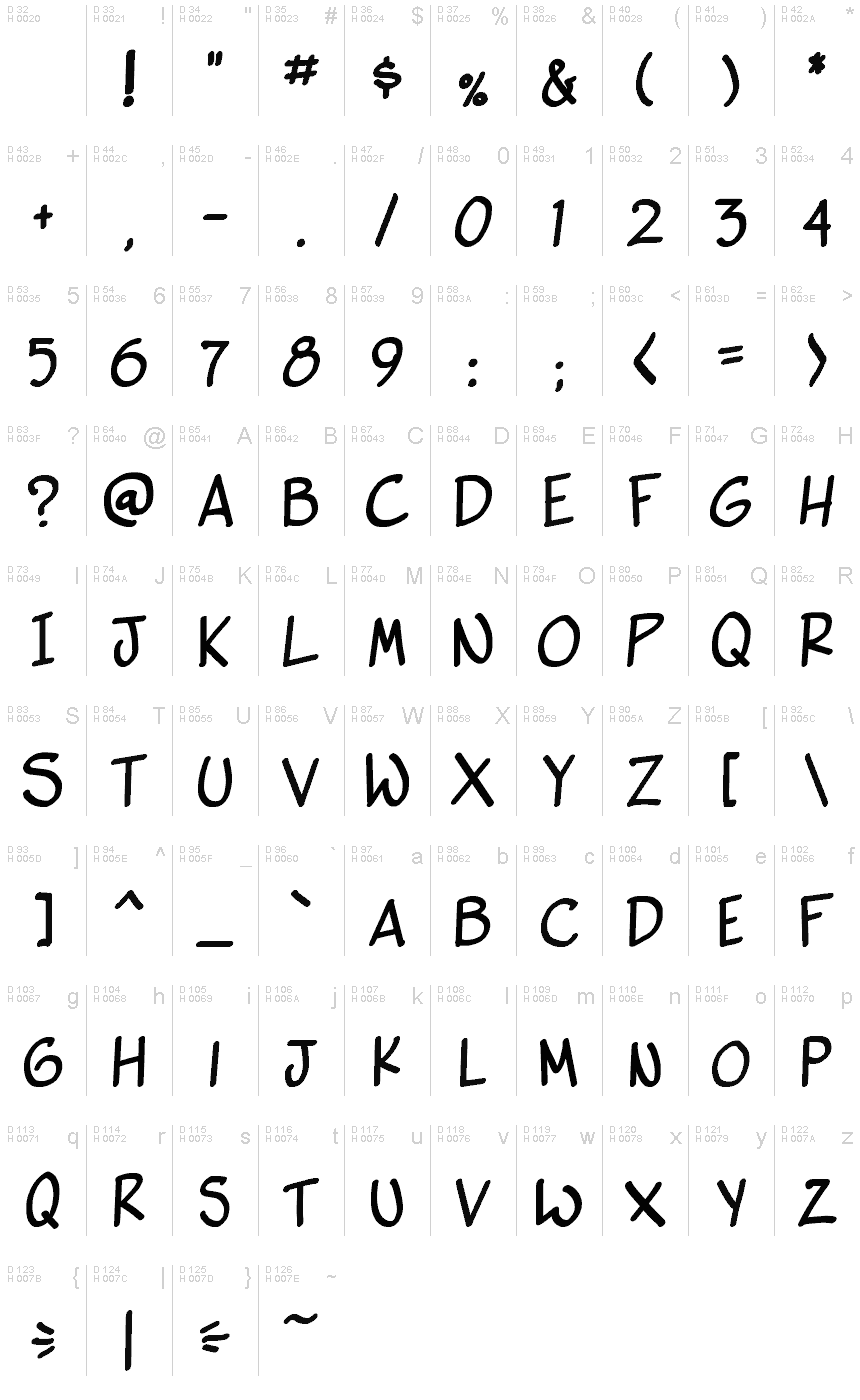
vigilante sidekick Bold
Vigilante Sidekick Bold emerges from the creative minds at Pressgang-studios.com, bringing a dynamic flair to the realm of display fonts. With its roots in the Vigilante Sidekick family, this typeface exudes a comic script style that's both playful and earnest, evoking the charm of classic superhero narratives and graphic novels.
The bold strokes and whimsical contours of Vigilante Sidekick Bold make it an excellent choice for projects that demand attention with a touch of lightheartedness. Its aesthetic appeal lies in the harmonious balance between readability and artistic character, ensuring it stands out while maintaining clarity.
Ideal for eye-catching headlines, vibrant advertising campaigns, or engaging comic book dialogues, Vigilante Sidekick Bold boasts versatility across various creative endeavors. Its unique blend of casual script notes with robust lettering allows designers to craft messages that are as impactful as they are delightful to behold. Embrace the spirit of adventure and storytelling with this standout font that promises to inject personality into every design.
The bold strokes and whimsical contours of Vigilante Sidekick Bold make it an excellent choice for projects that demand attention with a touch of lightheartedness. Its aesthetic appeal lies in the harmonious balance between readability and artistic character, ensuring it stands out while maintaining clarity.
Ideal for eye-catching headlines, vibrant advertising campaigns, or engaging comic book dialogues, Vigilante Sidekick Bold boasts versatility across various creative endeavors. Its unique blend of casual script notes with robust lettering allows designers to craft messages that are as impactful as they are delightful to behold. Embrace the spirit of adventure and storytelling with this standout font that promises to inject personality into every design.